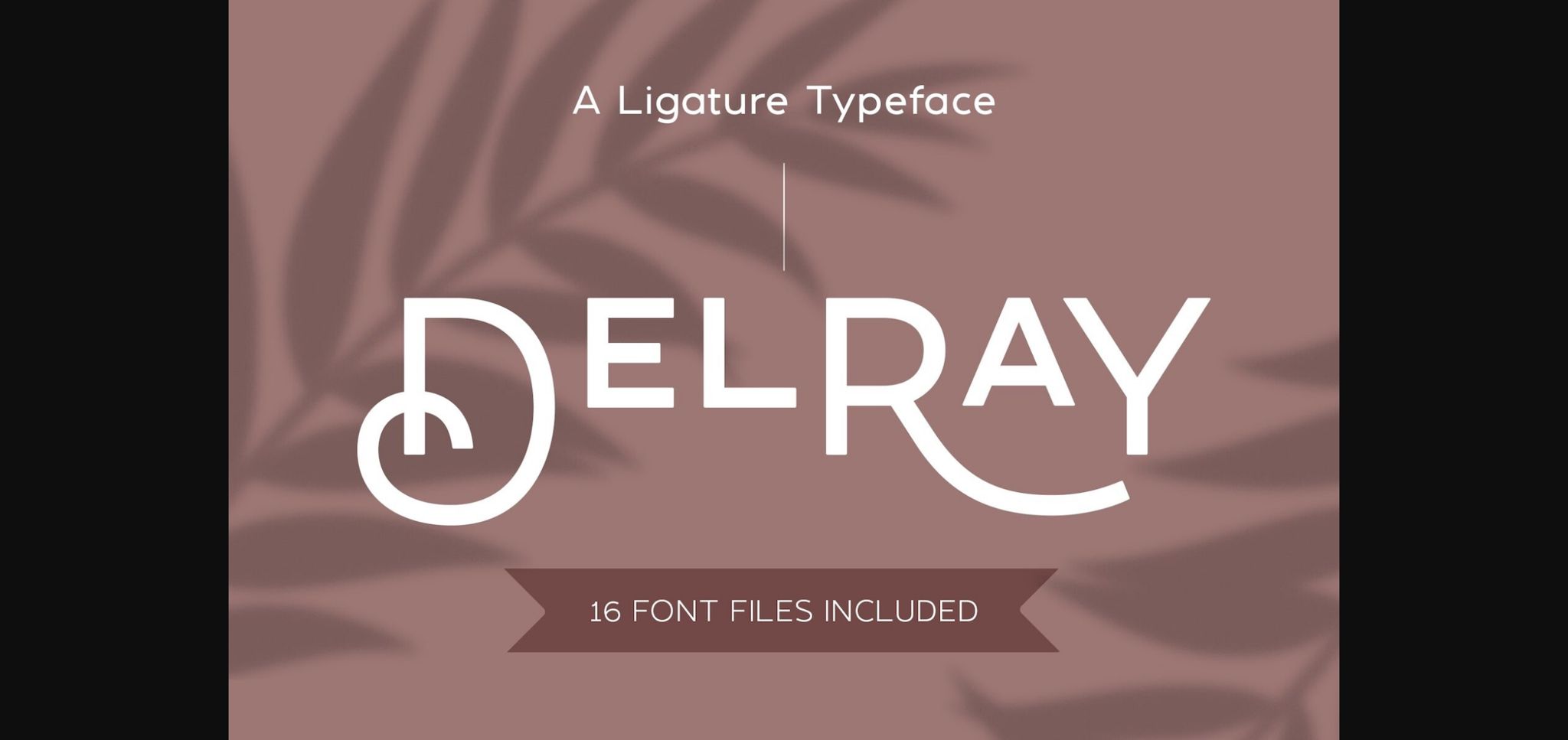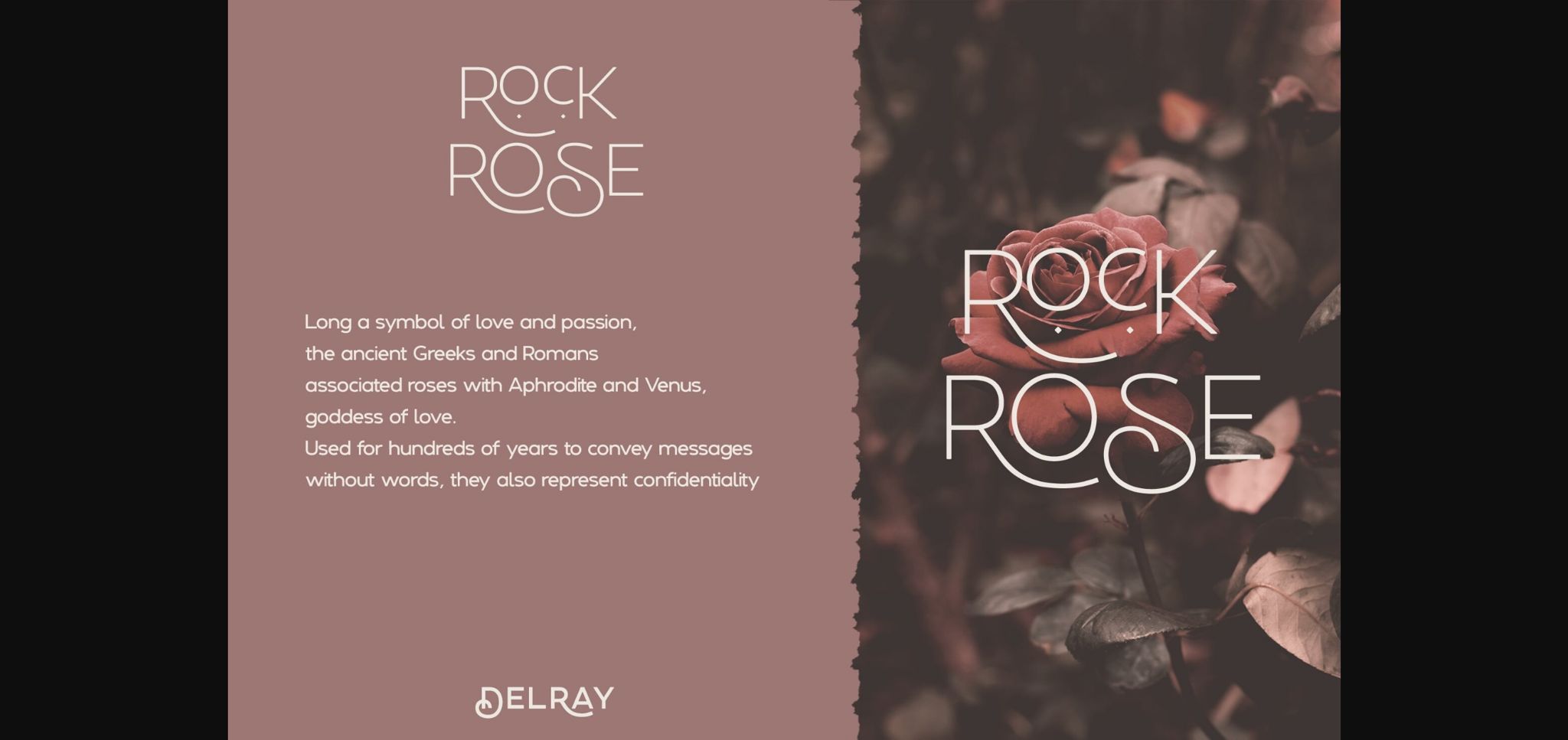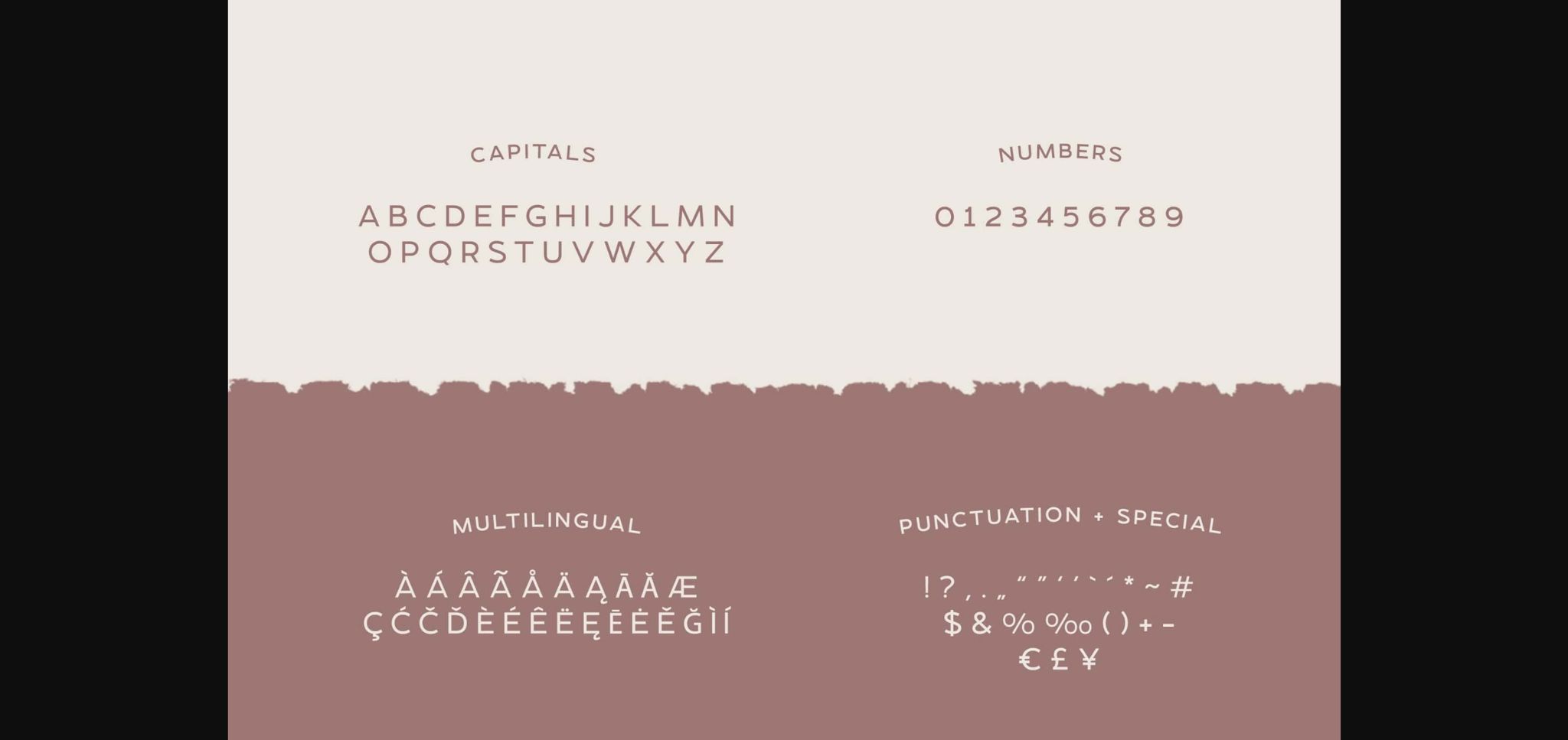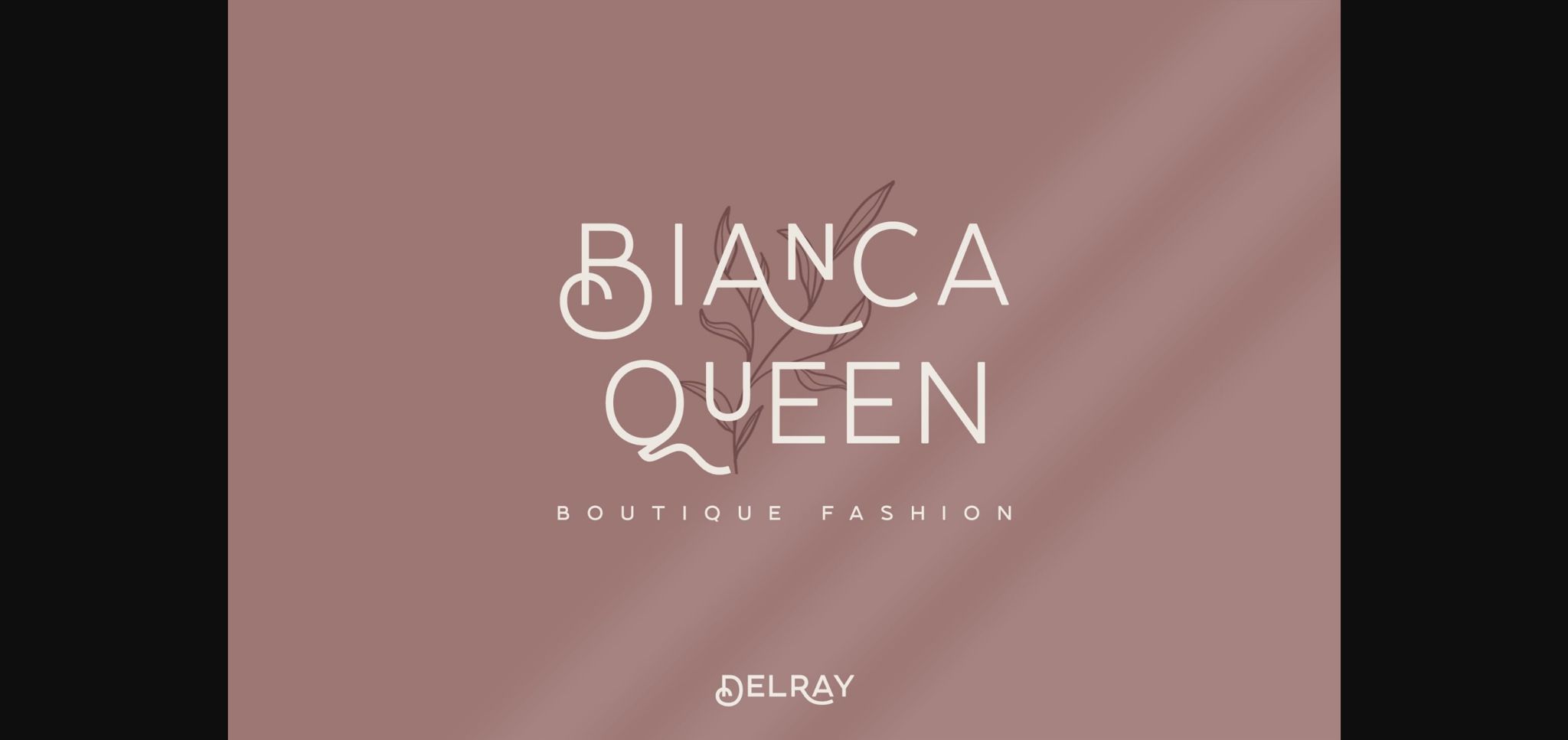
About Delray Font
DelRay is a ligature-filled sans serif typeface that features 7 weights, plus italics and a variable font!
This versatile font is sure to add a little refinement and style to your designs.
DelRay features multilingual characters as well as alternates such as elevated capitals & capitals with stylistic underdots added.
This versatile font is sure to add a little refinement and style to your designs.
DelRay features multilingual characters as well as alternates such as elevated capitals & capitals with stylistic underdots added.